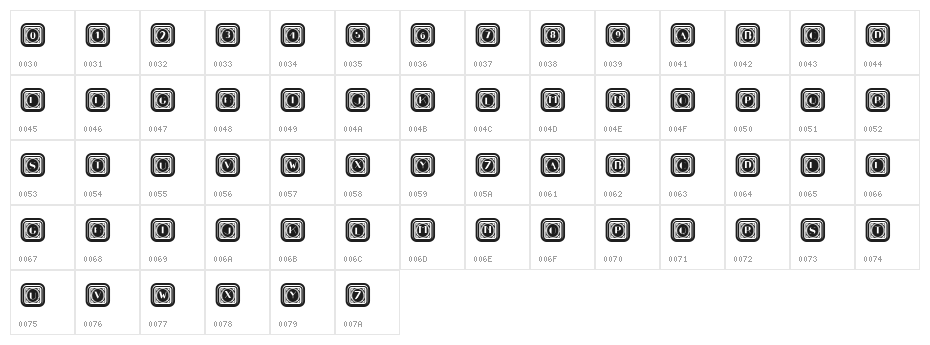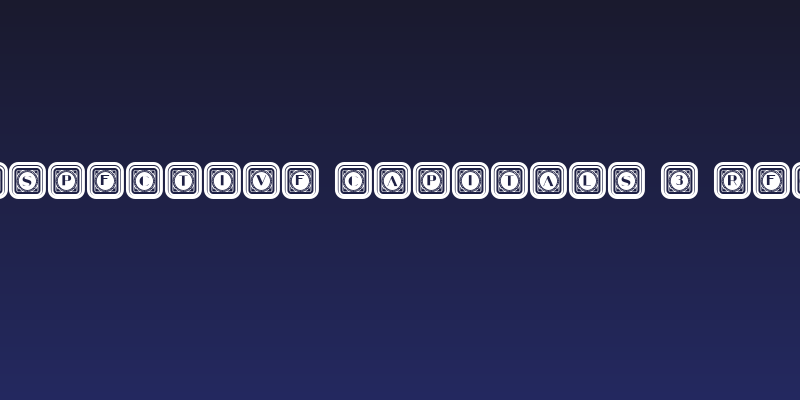
Retrospective Capitals 3 Regular Font
Retrospective Capitals 3 Regular Description
This font features a bold, decorative style with each character enclosed in a square frame, reminiscent of vintage typewriter keys. The letters are uppercase and numerals are included, all presented in a consistent, uniform size. The design incorporates a layered effect with a shadow, adding depth and a three-dimensional appearance. The overall look is striking and eye-catching, making it suitable for projects that require a retro or nostalgic feel. The characters are well-defined with a medium contrast between the strokes, ensuring readability while maintaining a unique aesthetic.
| Proposed Projects | Ideal for retro-themed designs, posters, branding, and packaging that require a nostalgic touch. |